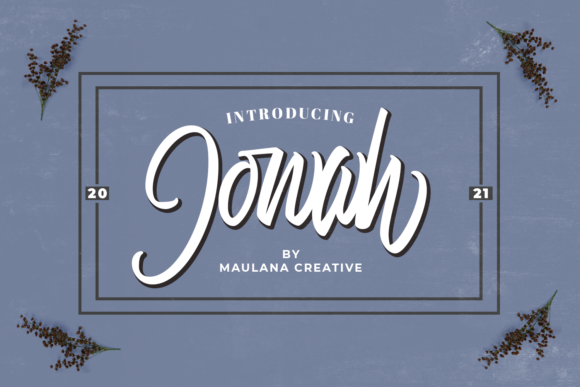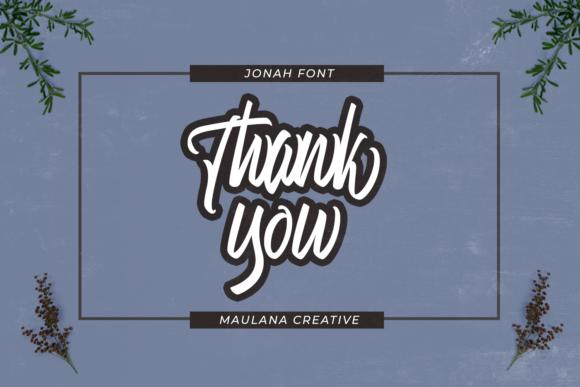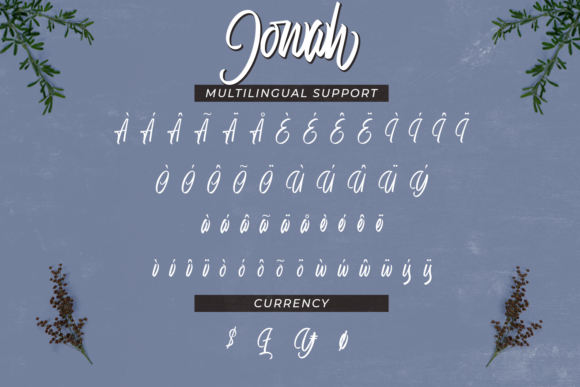
About Jonah Font
Jonah is a beautiful paint brushed handwritten font with a unique feel and a stunning impact. It will add a luxury spark to any design project that you wish to create! This font is PUA encoded which means you can access all of the amazing glyphs and ligatures with ease!